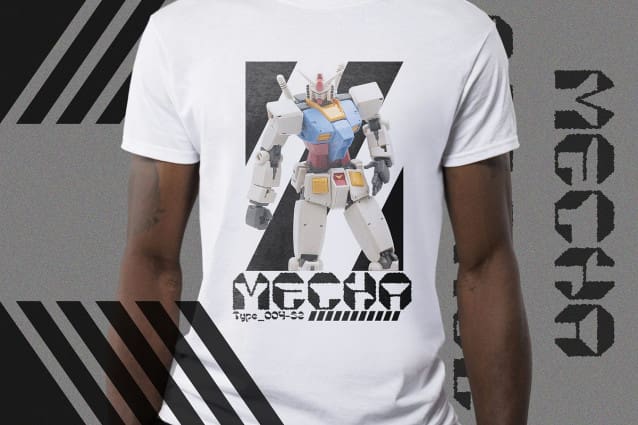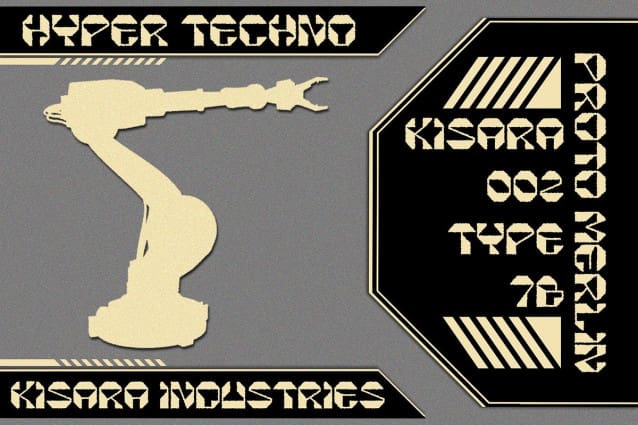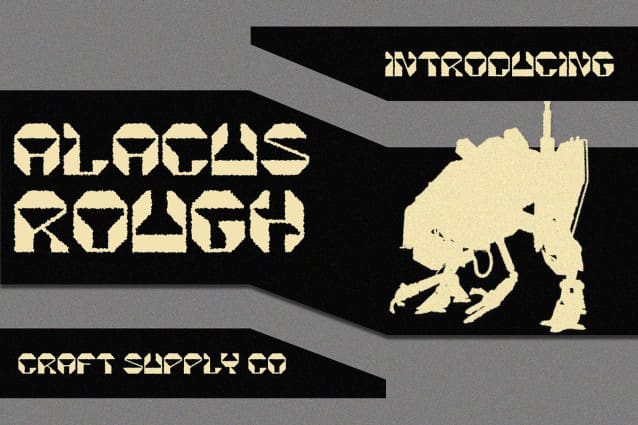
Alacus Rough Font
Alacus Rough Font: Futuristic Gothic Display Typeface. Geometric Inspiration Alacus Rough draws inspiration from the sleek lines and angular shapes of robots, resulting in a display font with a distinct geometric aesthetic.
Robotic Influence Infused with the essence of robotics, this font embodies the futuristic and mechanical qualities associated with modern technology, lending a cutting-edge vibe to any design.
Rough and Edgy The rough texture adds a gritty and edgy feel to This font, enhancing its gothic undertones and giving it a raw and industrial appeal.
Versatile Application From sci-fi movie posters to tech-themed websites, This font is versatile enough to suit a range of design projects seeking a bold and unconventional aesthetic.
Bold Vision of the Future This font emerges as a bold and visionary display typeface, blending geometric precision with rough-edged gothic elements inspired by robotics. Whether conveying a sense of futurism or adding an edge to contemporary designs, This font stands out as a unique and impactful choice.